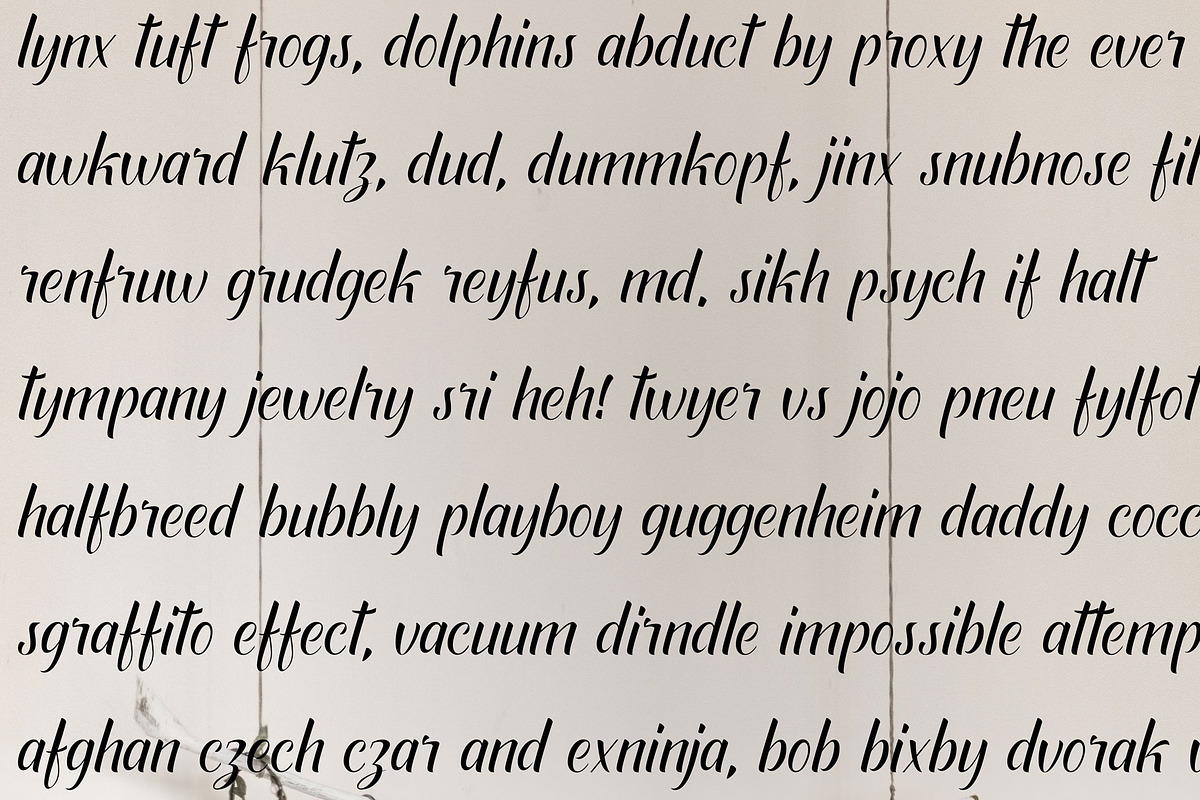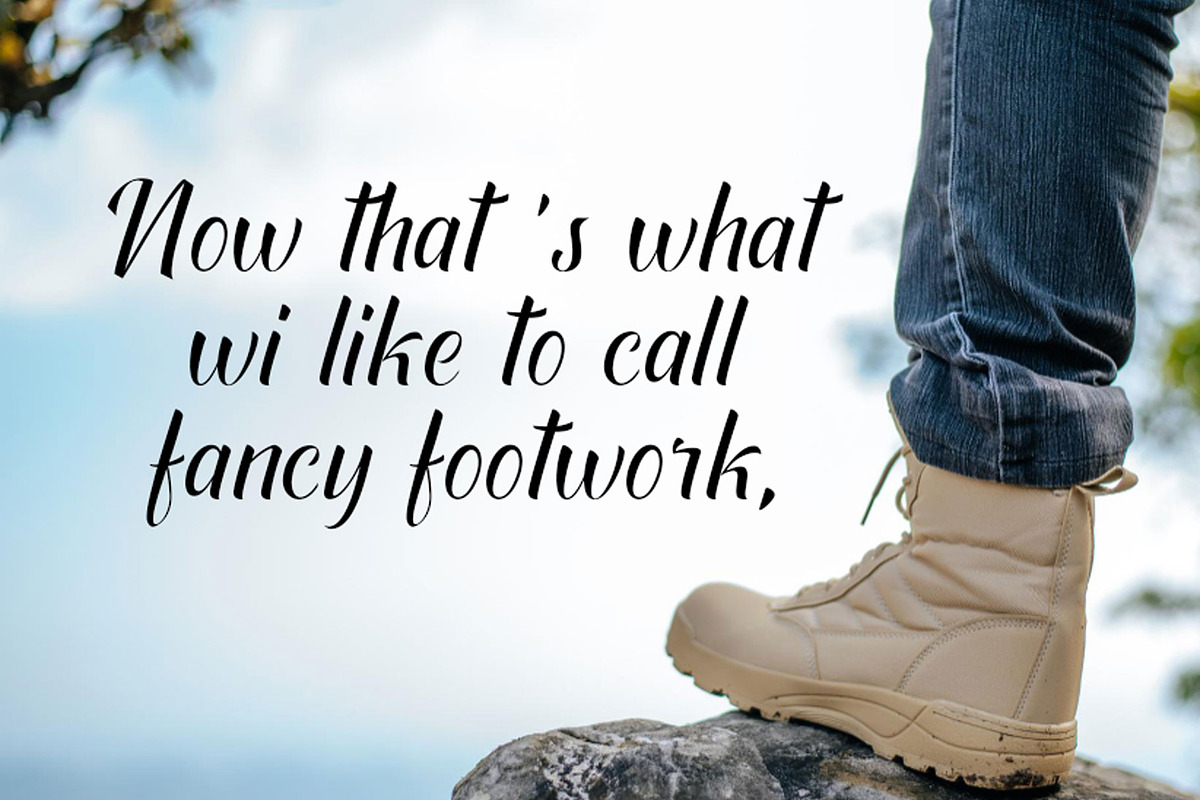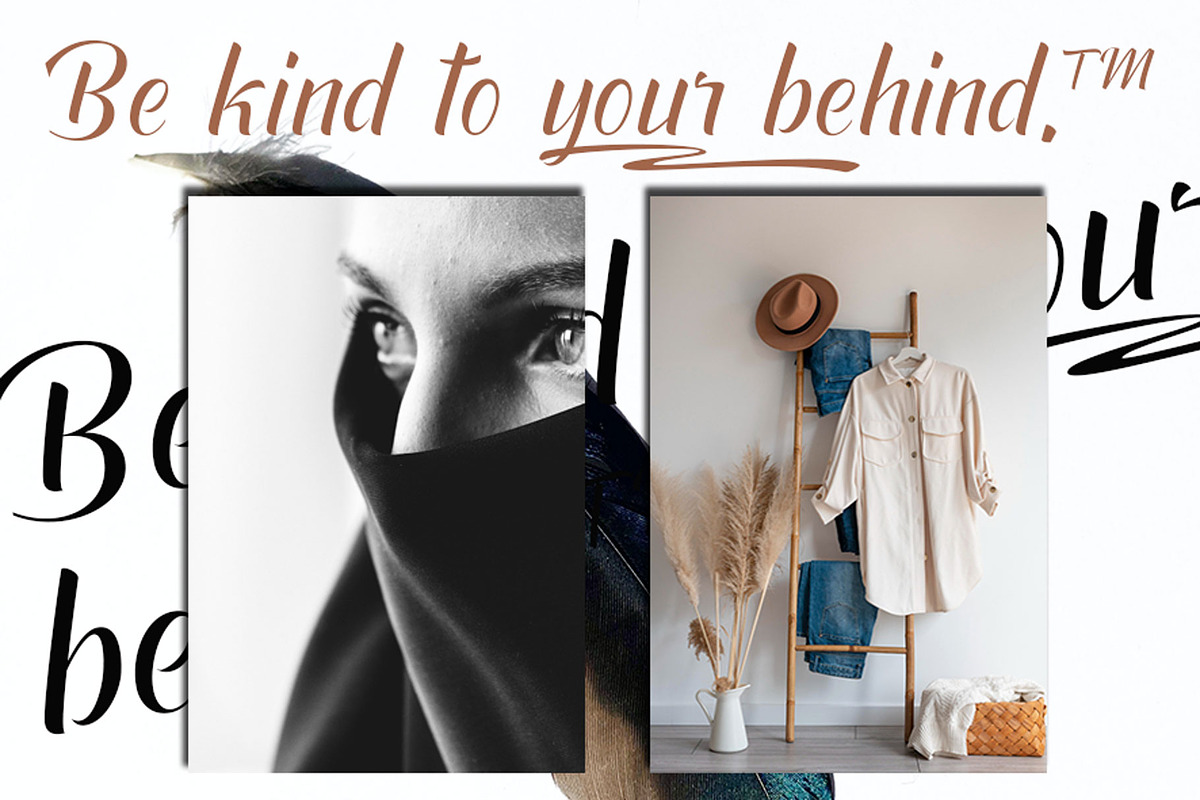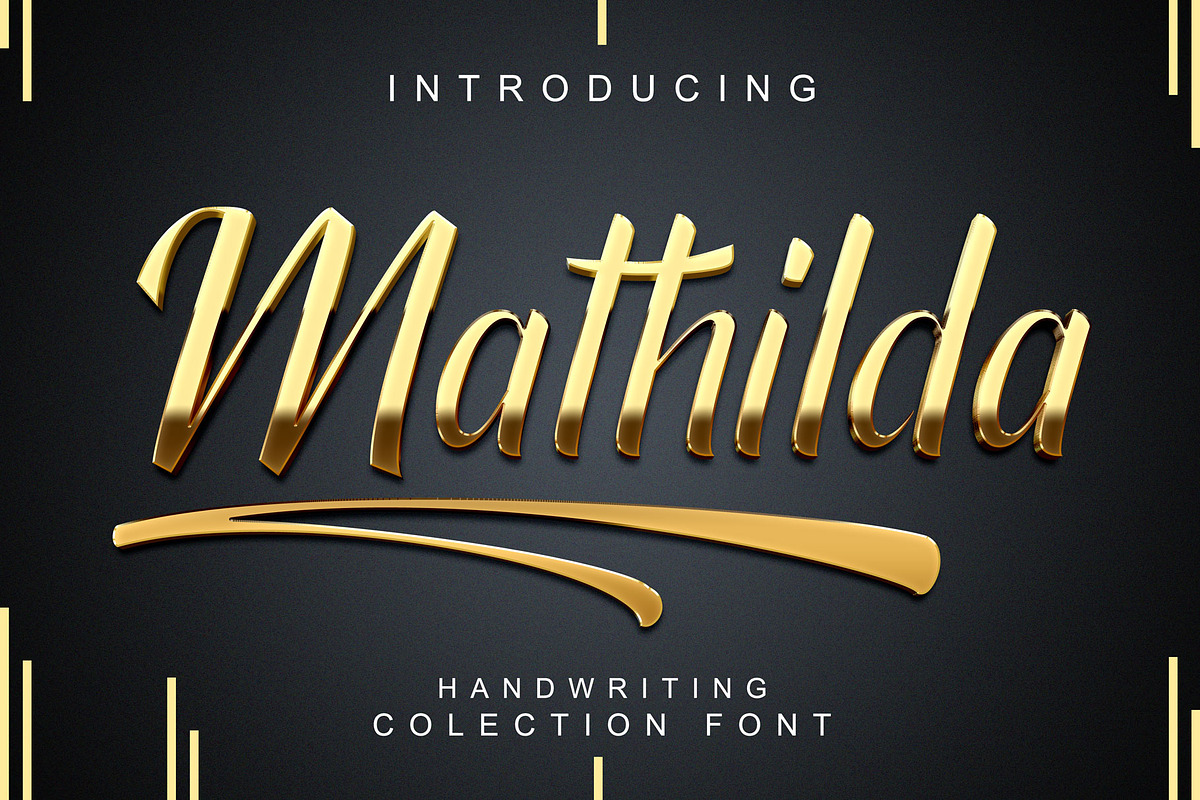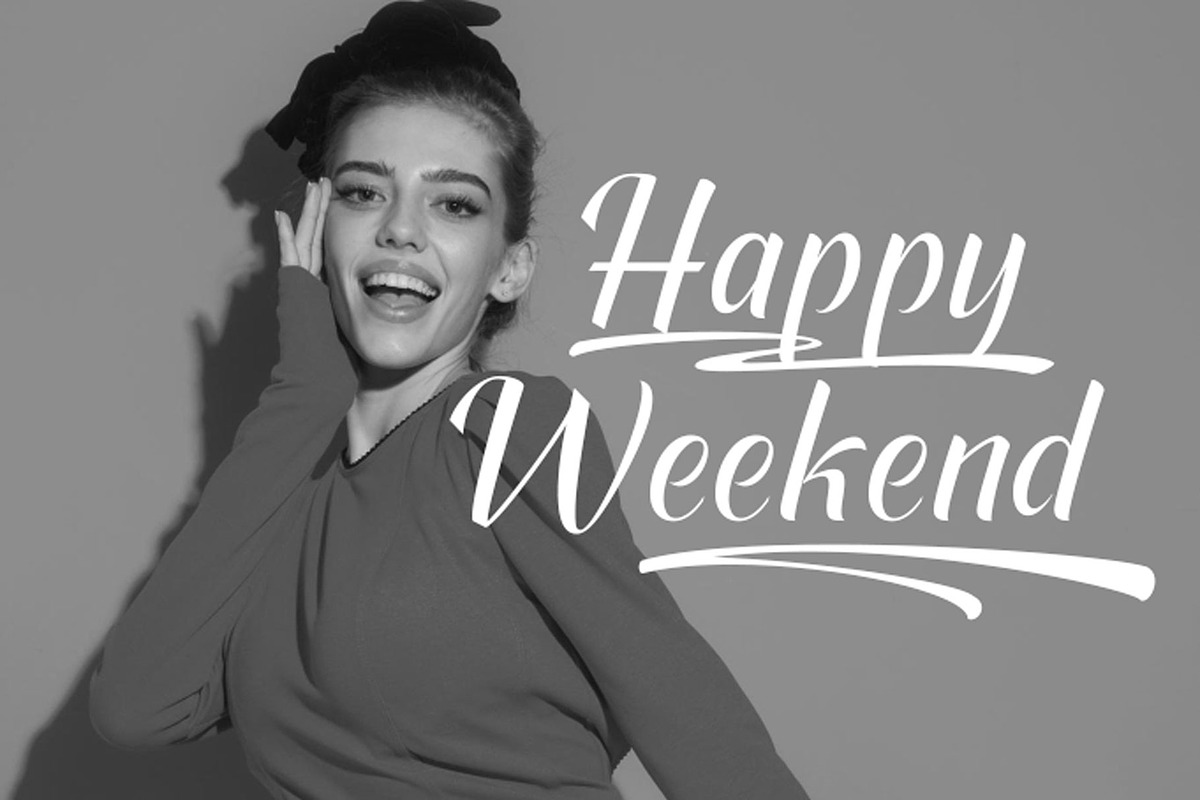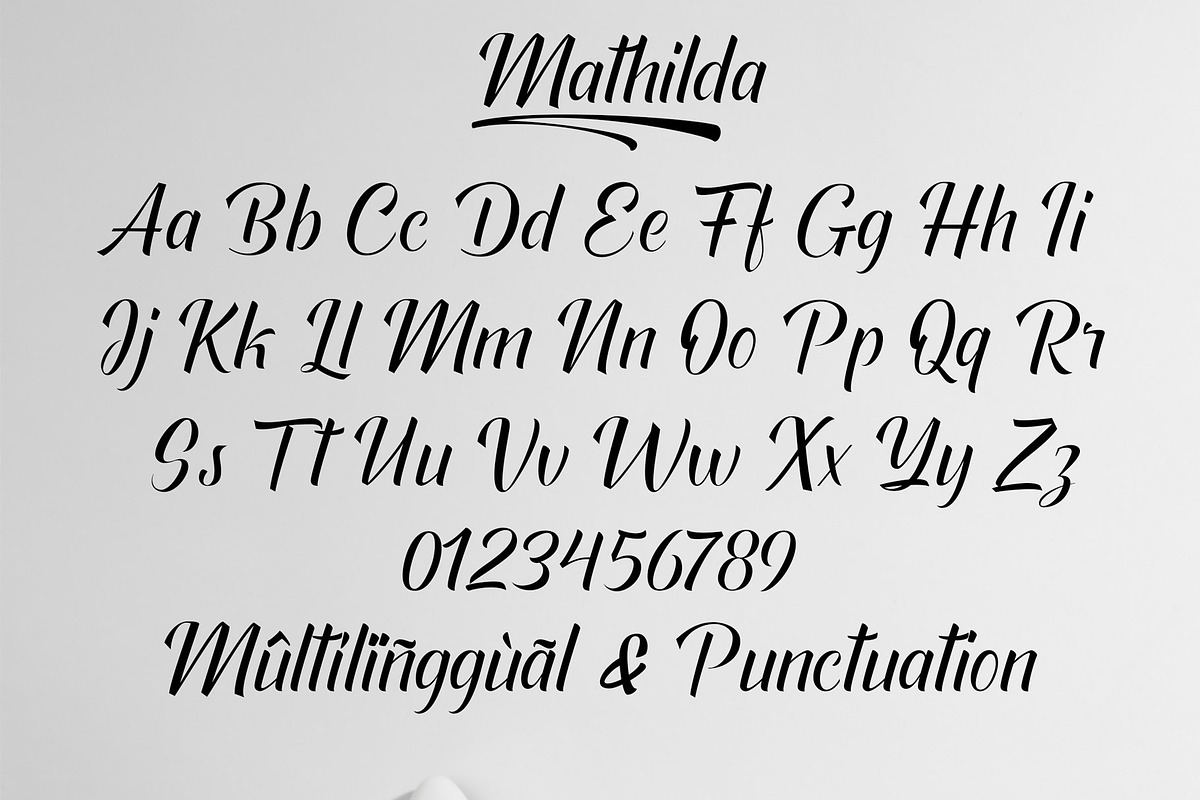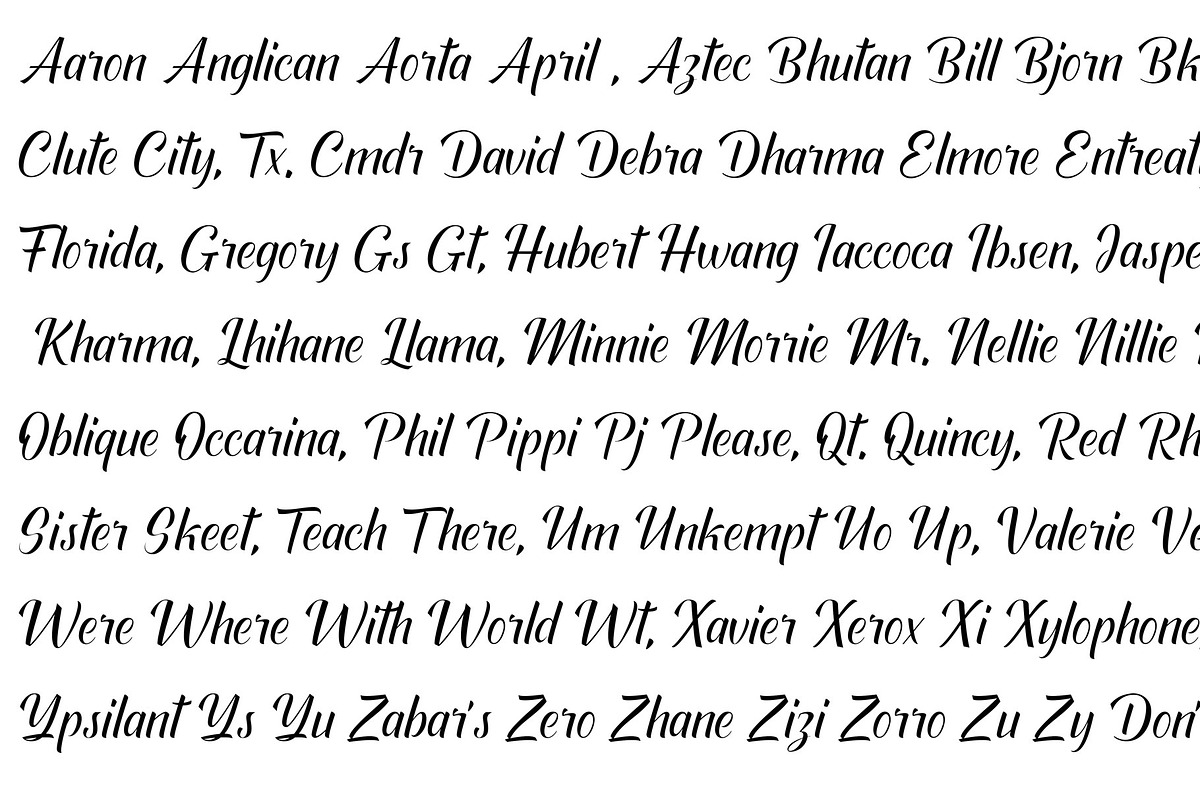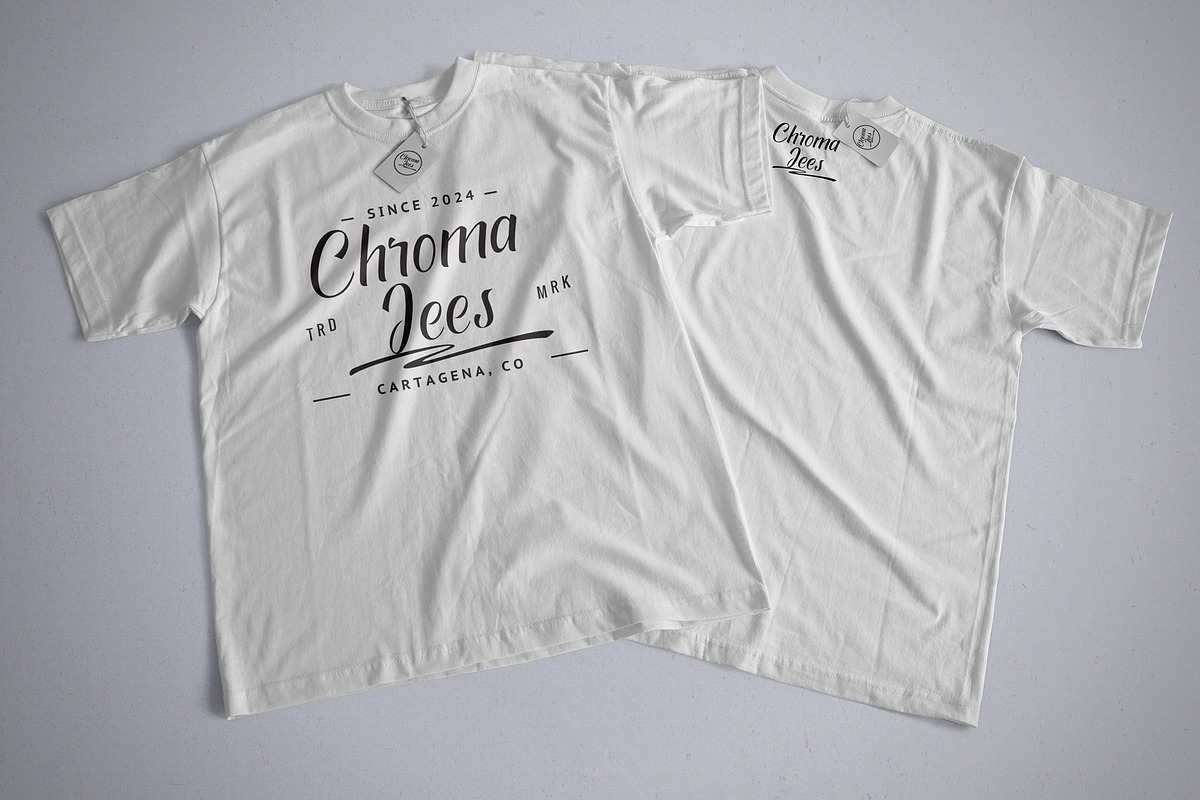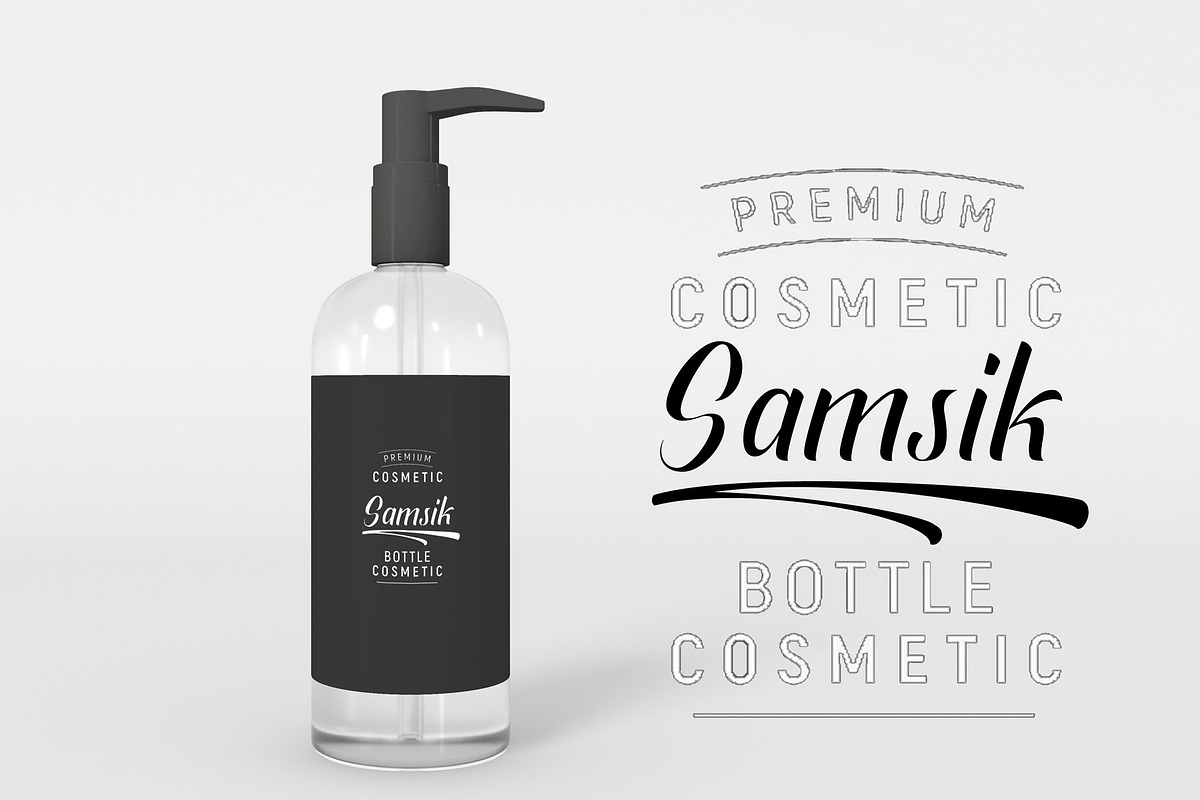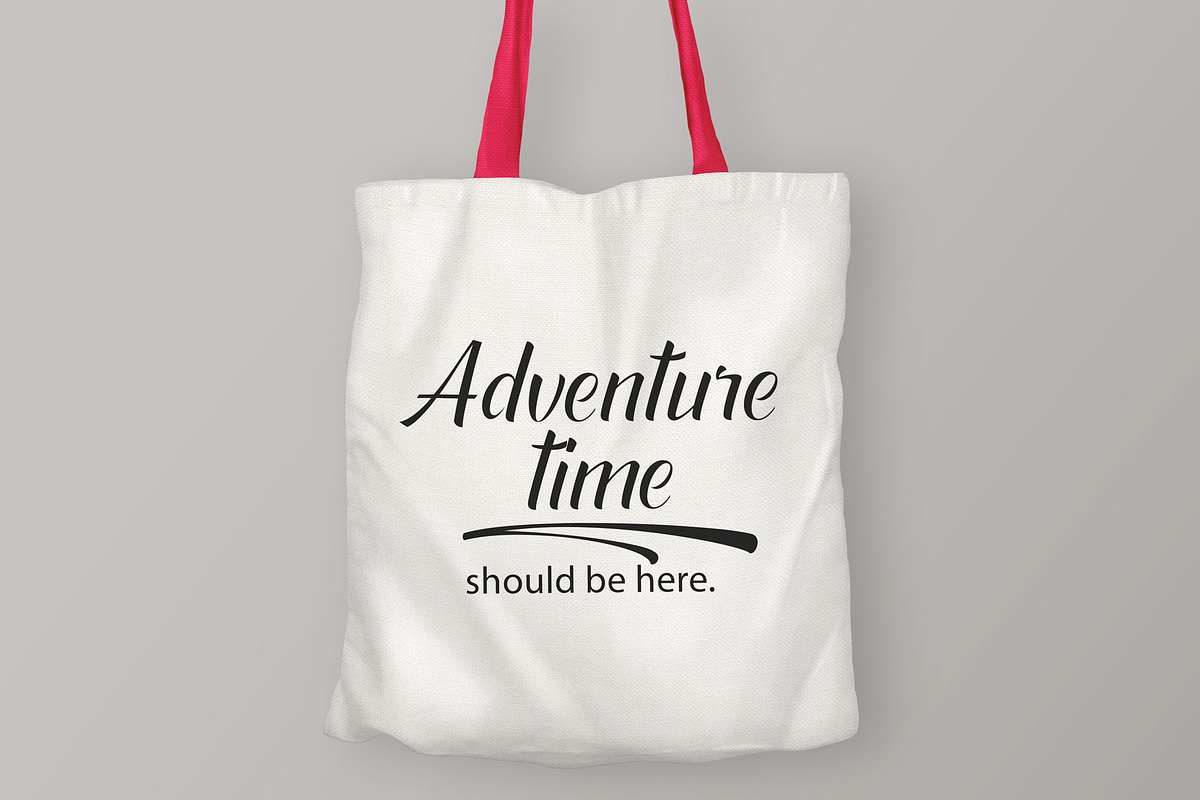
Mathilda
Mathilda is a beautiful modern calligraphy script font that is suitable for branding, wedding invitations, greeting cards, posters, name card, quotes, blog header, logo, fashion, apparel, letter, stationery and other projects.